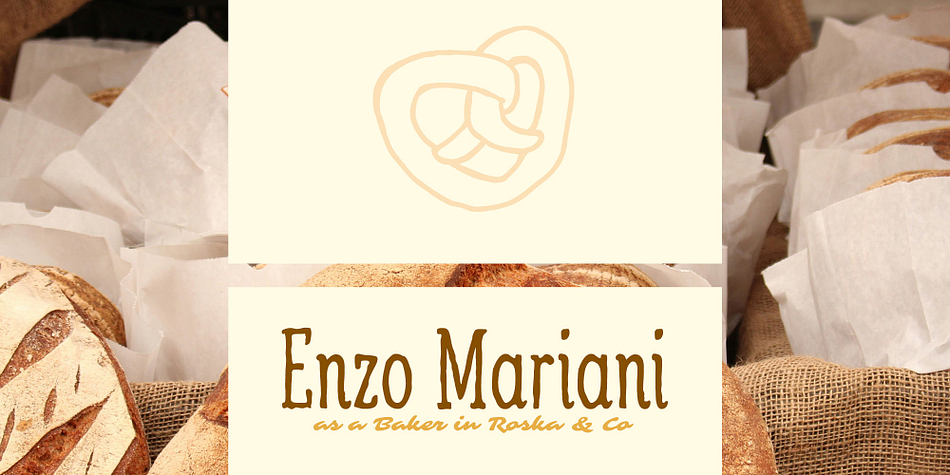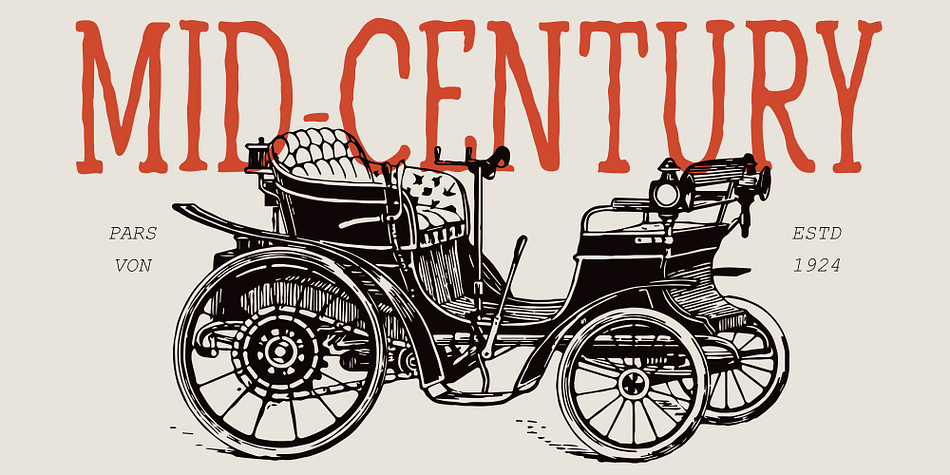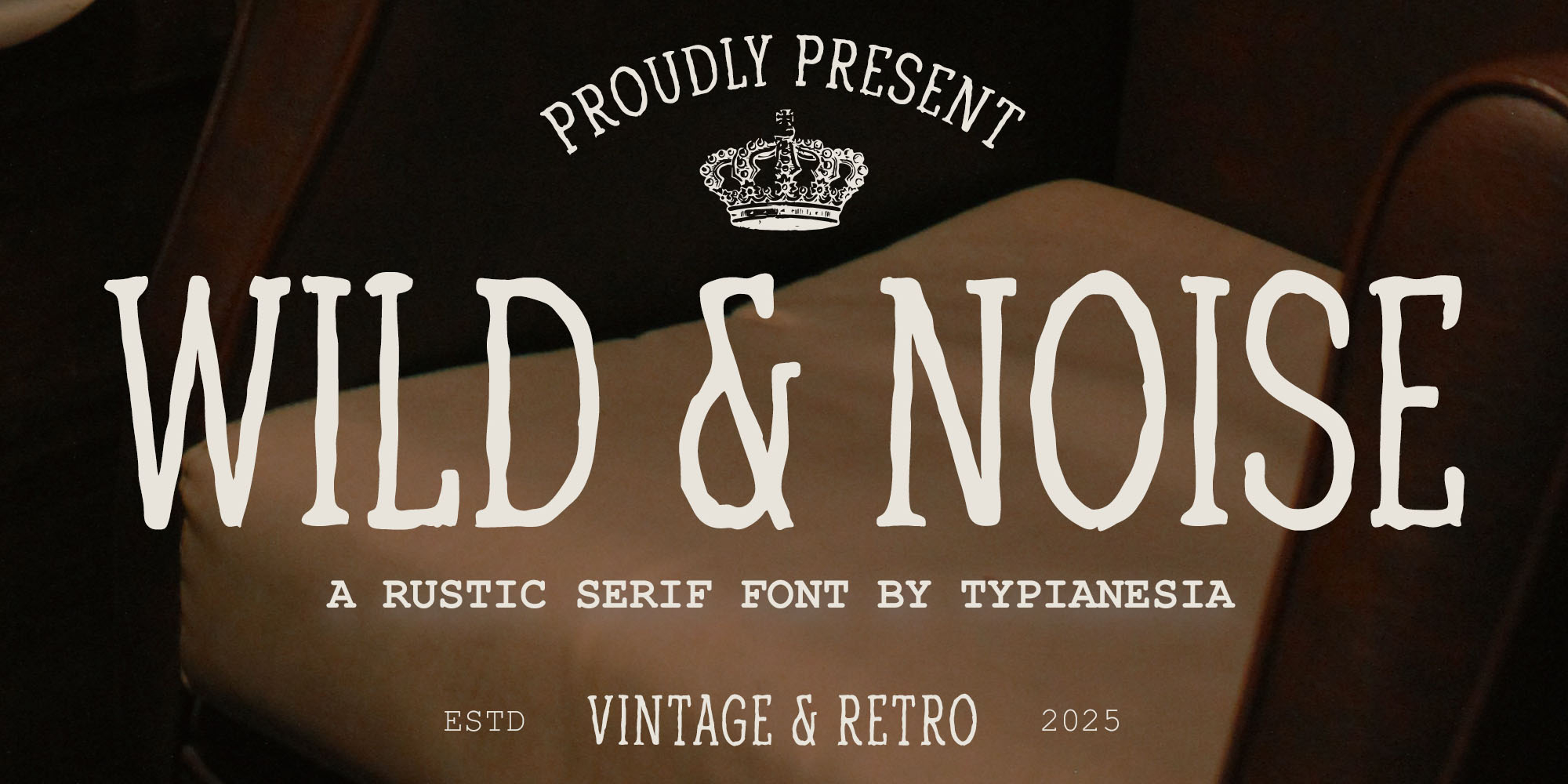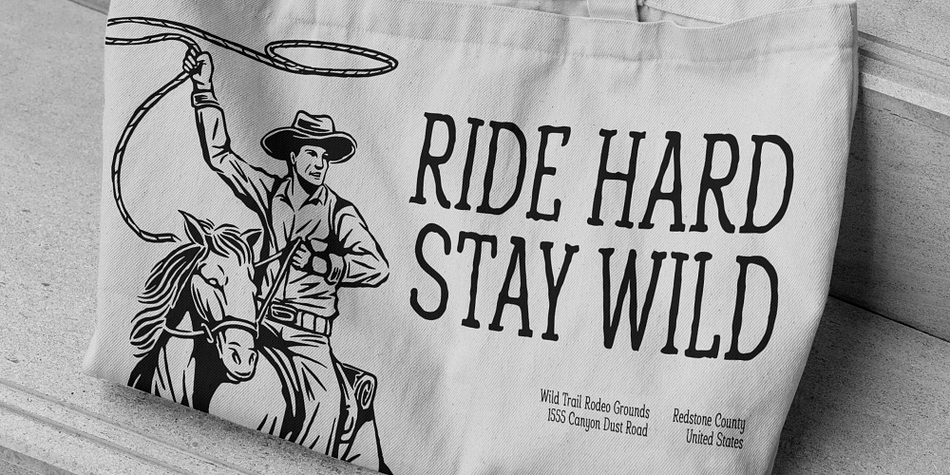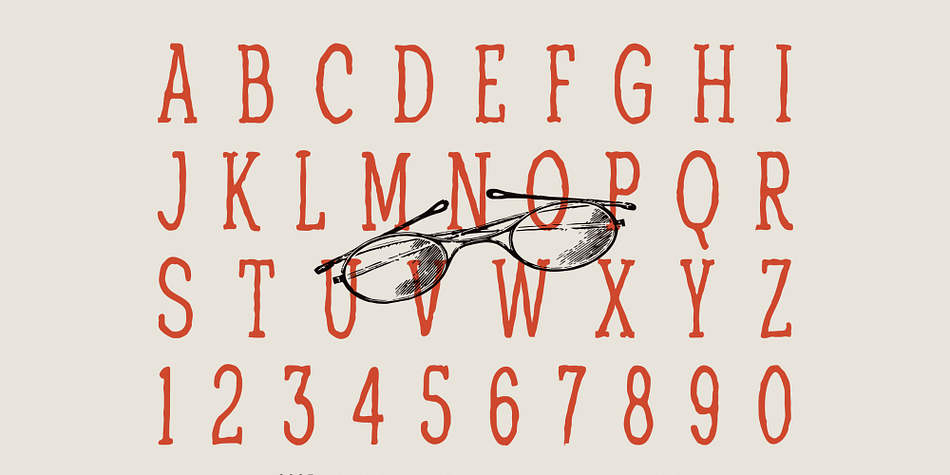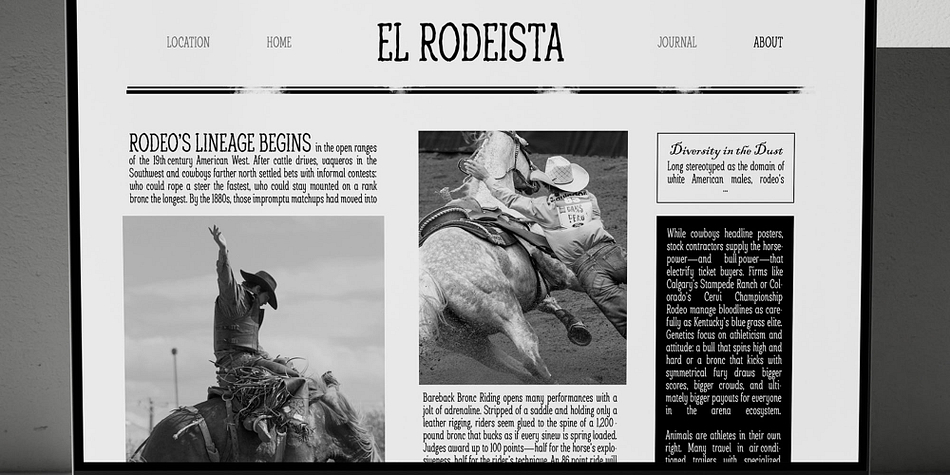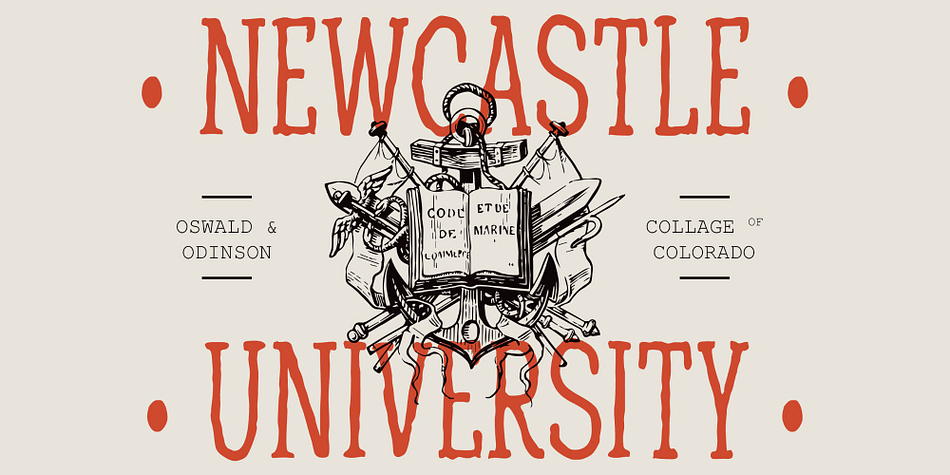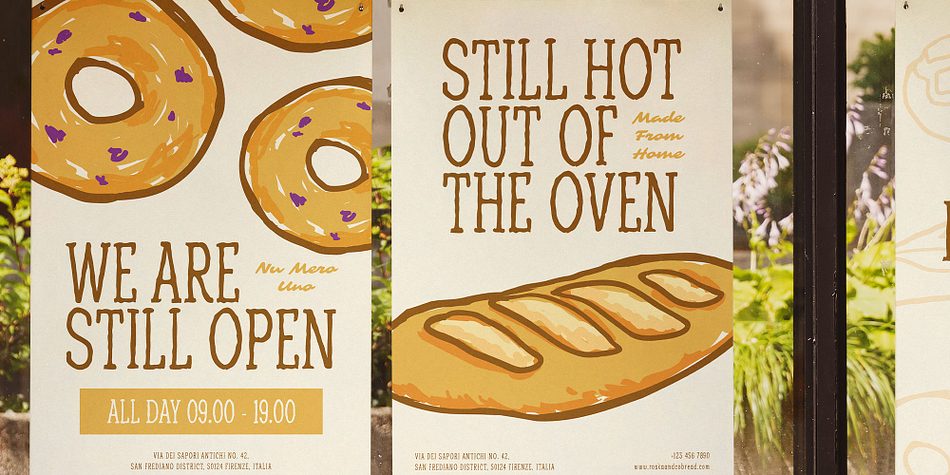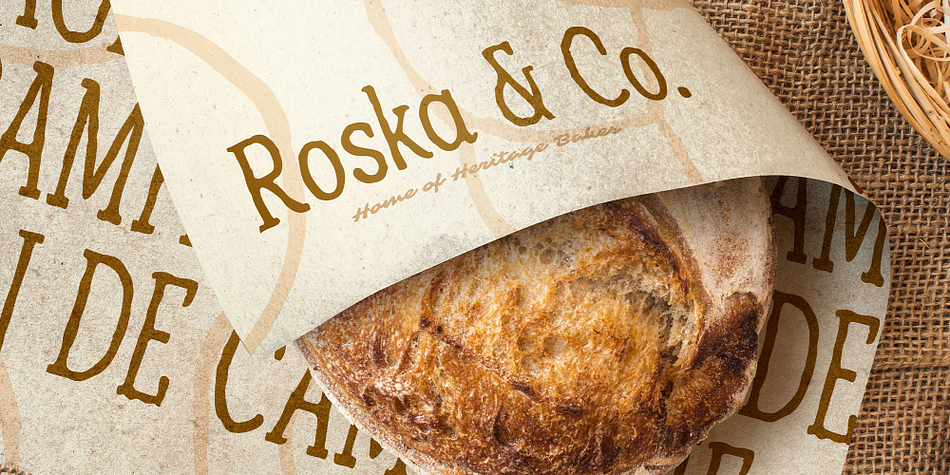
Wild & Noise
Wild & Noise is a hand drawn font family published by Typia Nesia.
Wild & Noise - Rustic Vintage Serif Typeface - Classic Aesthetic Handcrafted Design
Wild & Noise is a rustic serif font with a vintage soul, designed for creators seeking authentic, handcrafted typography. Featuring a hand-drawn aesthetic and subtle imperfections, this typeface brings a warm, organic feel to logos, branding, packaging, posters, newspaper, magazine, merchandise, and retro-themed projects. Multilingual support and versatile characters make Wild & Noise perfect for global creatives who love vintage style with a touch of noise and wild charm.